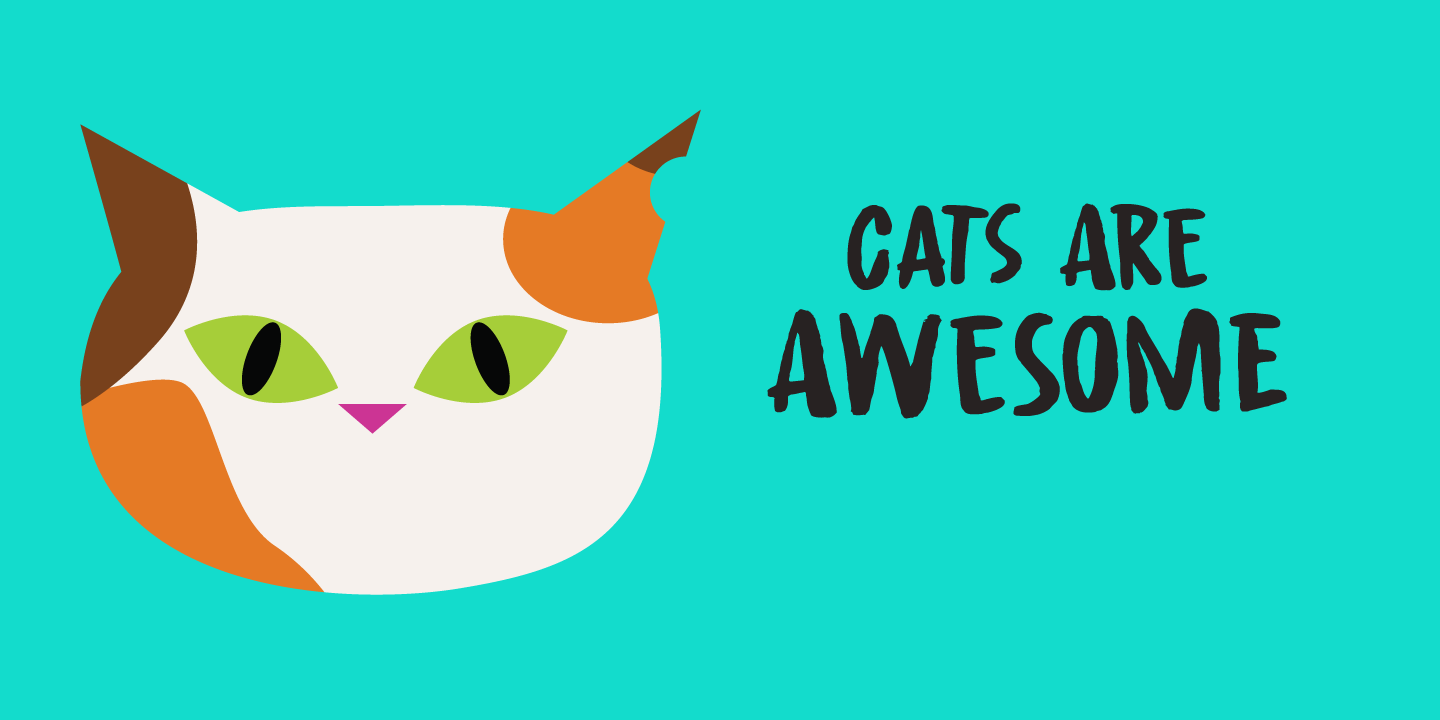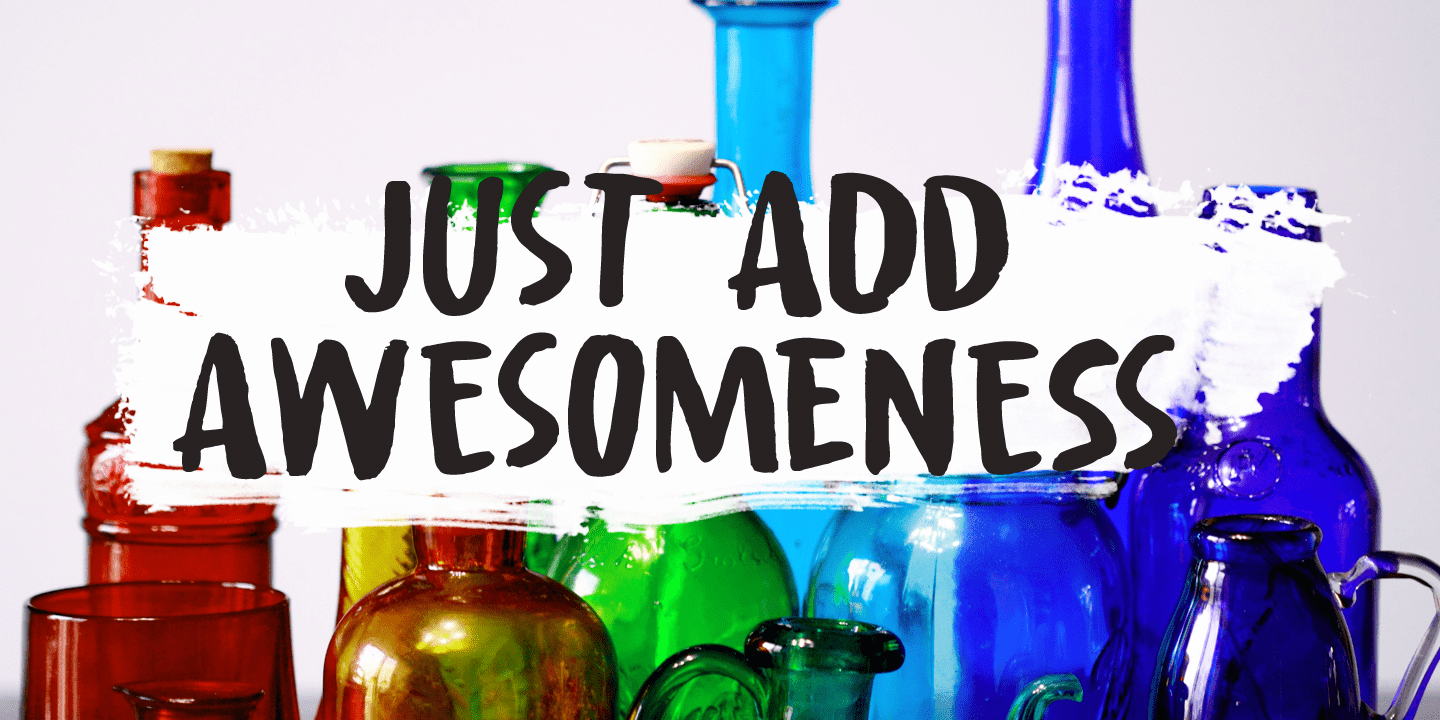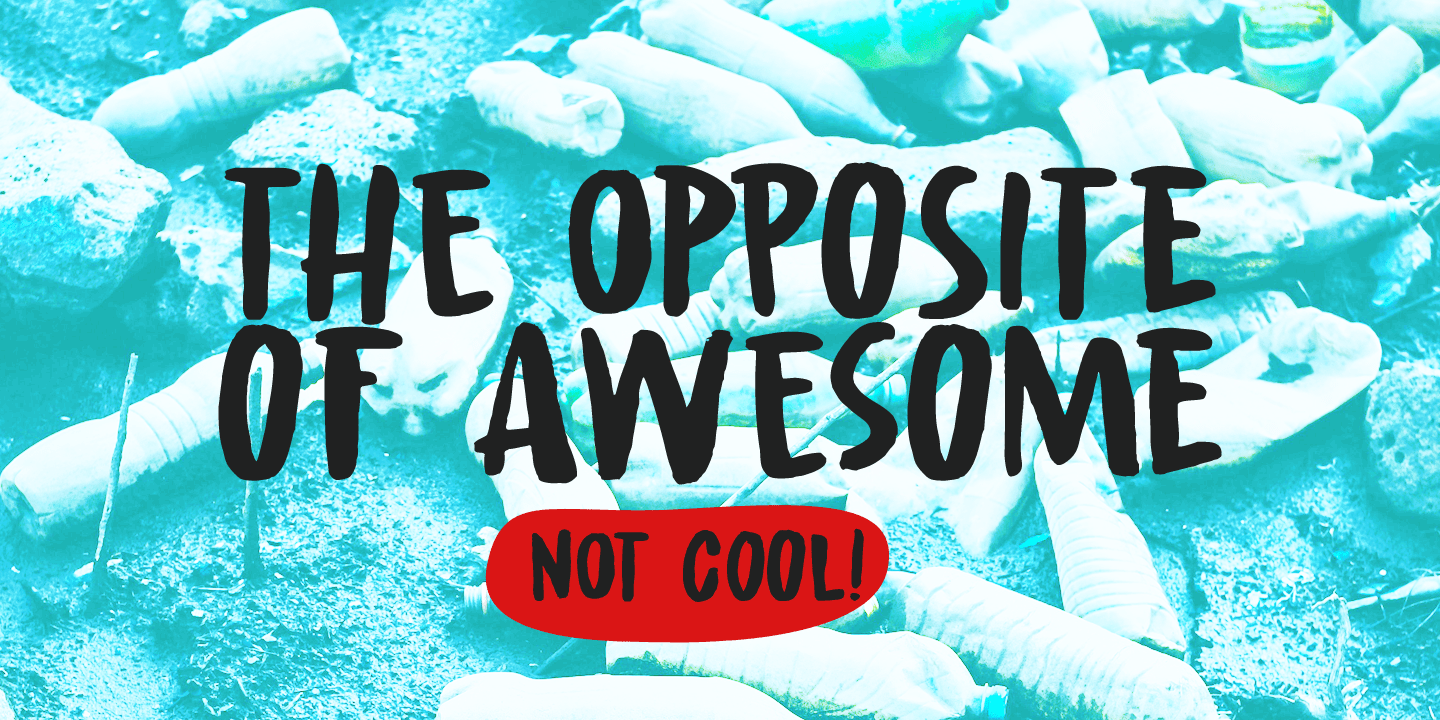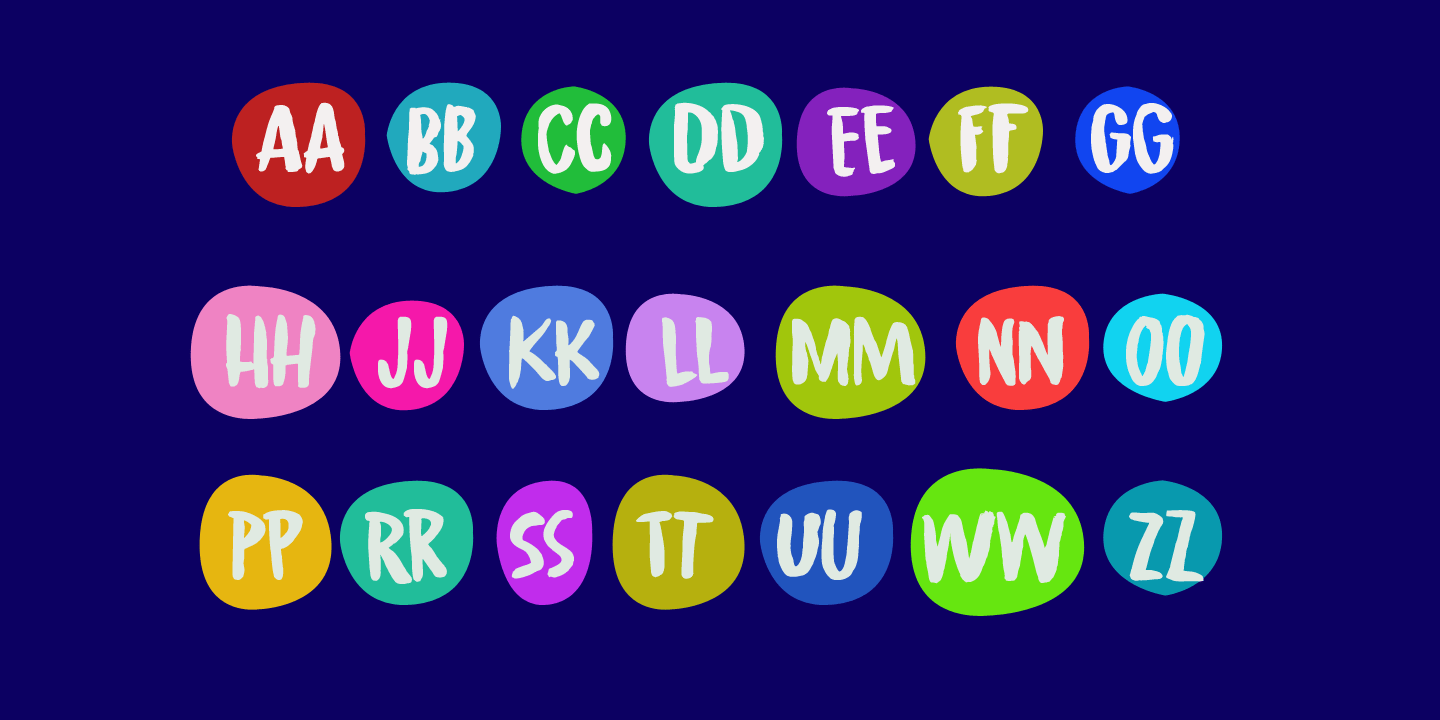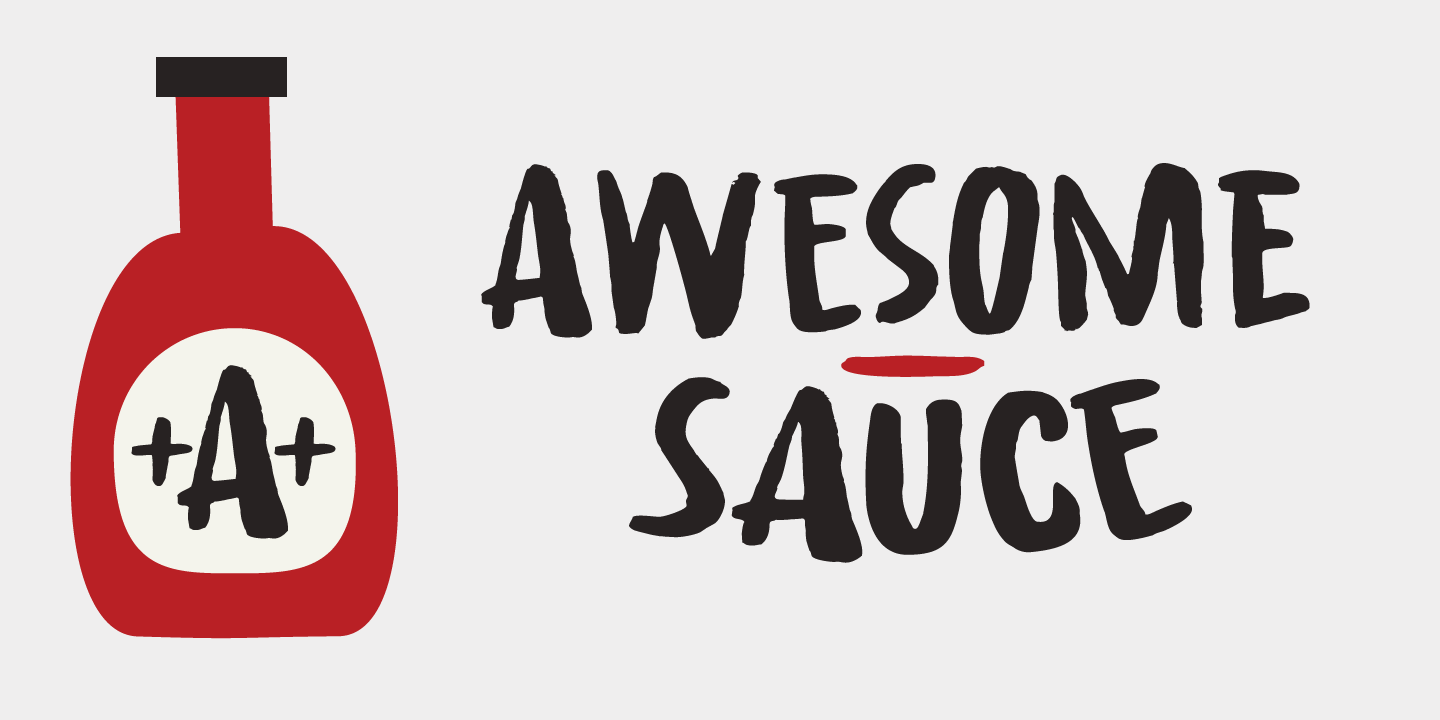
About Awesome Sauce
Awesome Sauce is a pretty awesome font. Despite its humble origins (it was made using a really cheap brush and ink), Awesome Sauce retains a rebel stylishness. Awesome Sauce comes with all the accents you want and double letter ligatures to boot!